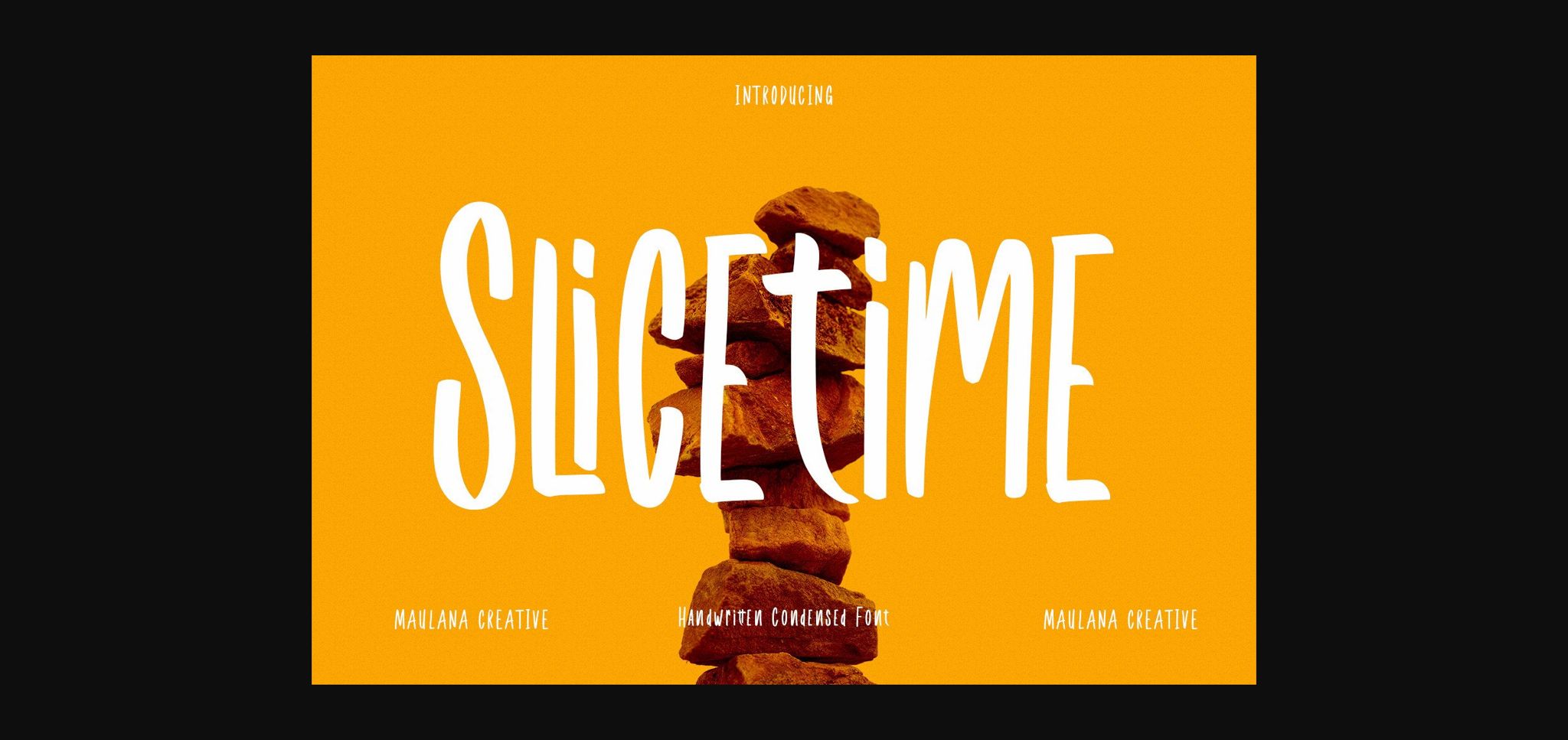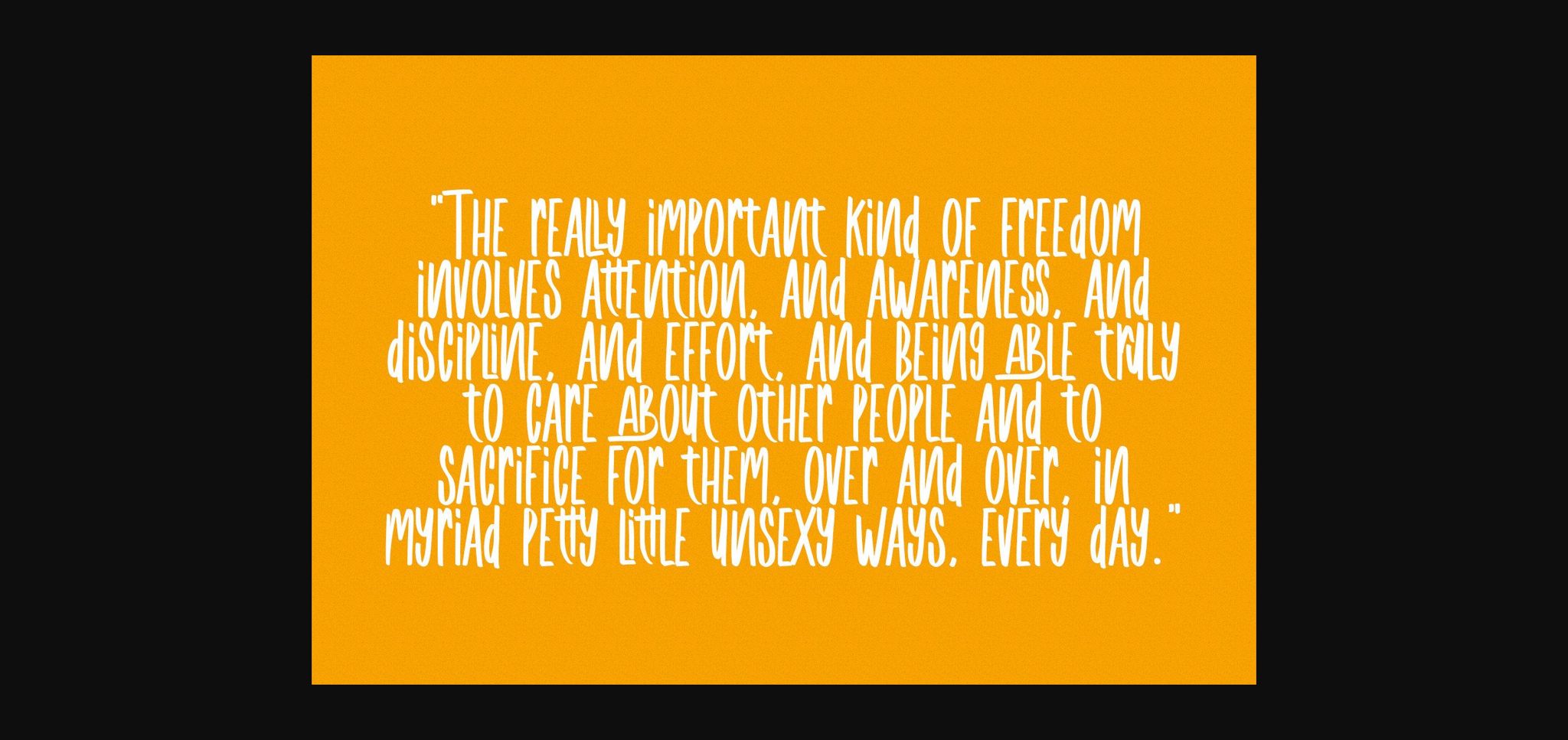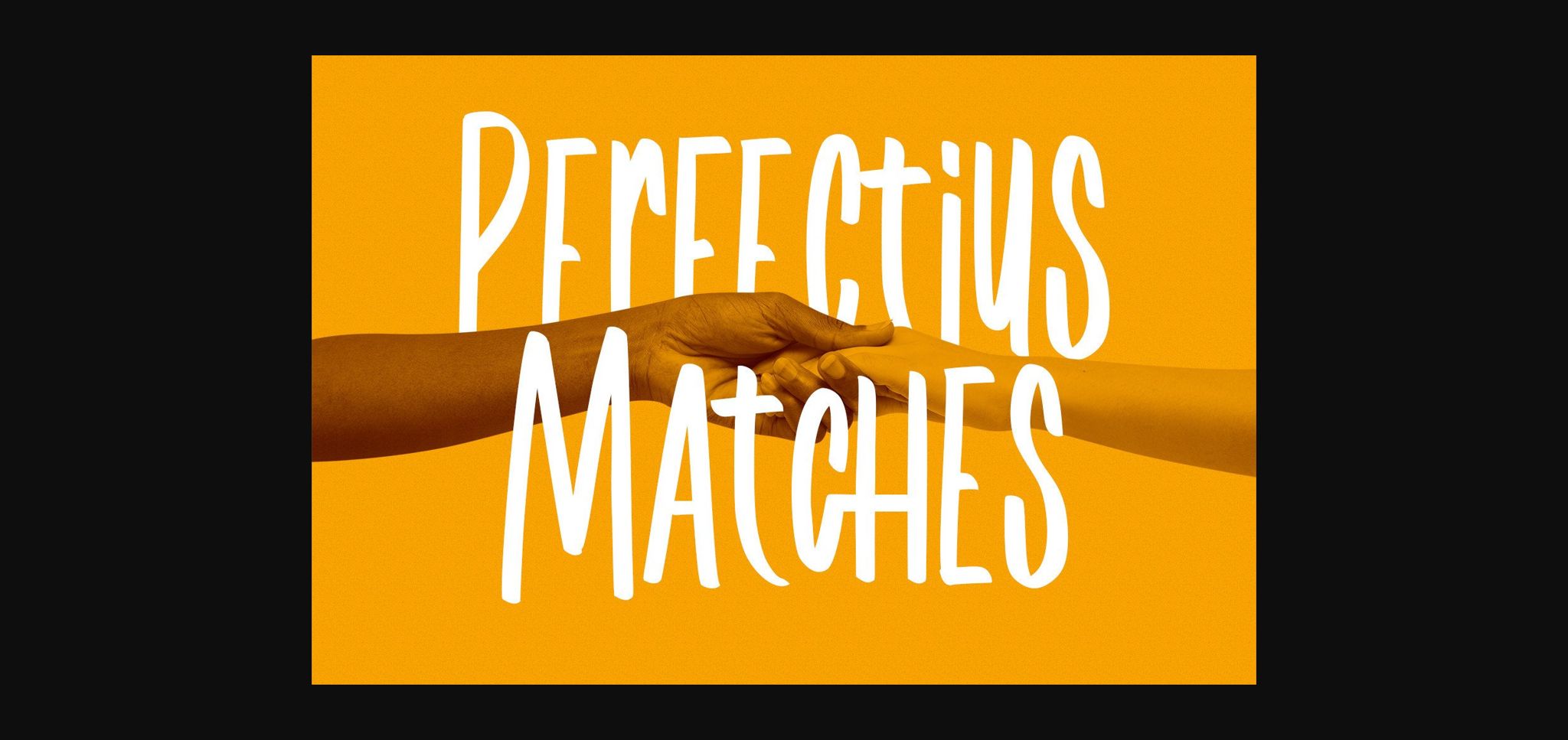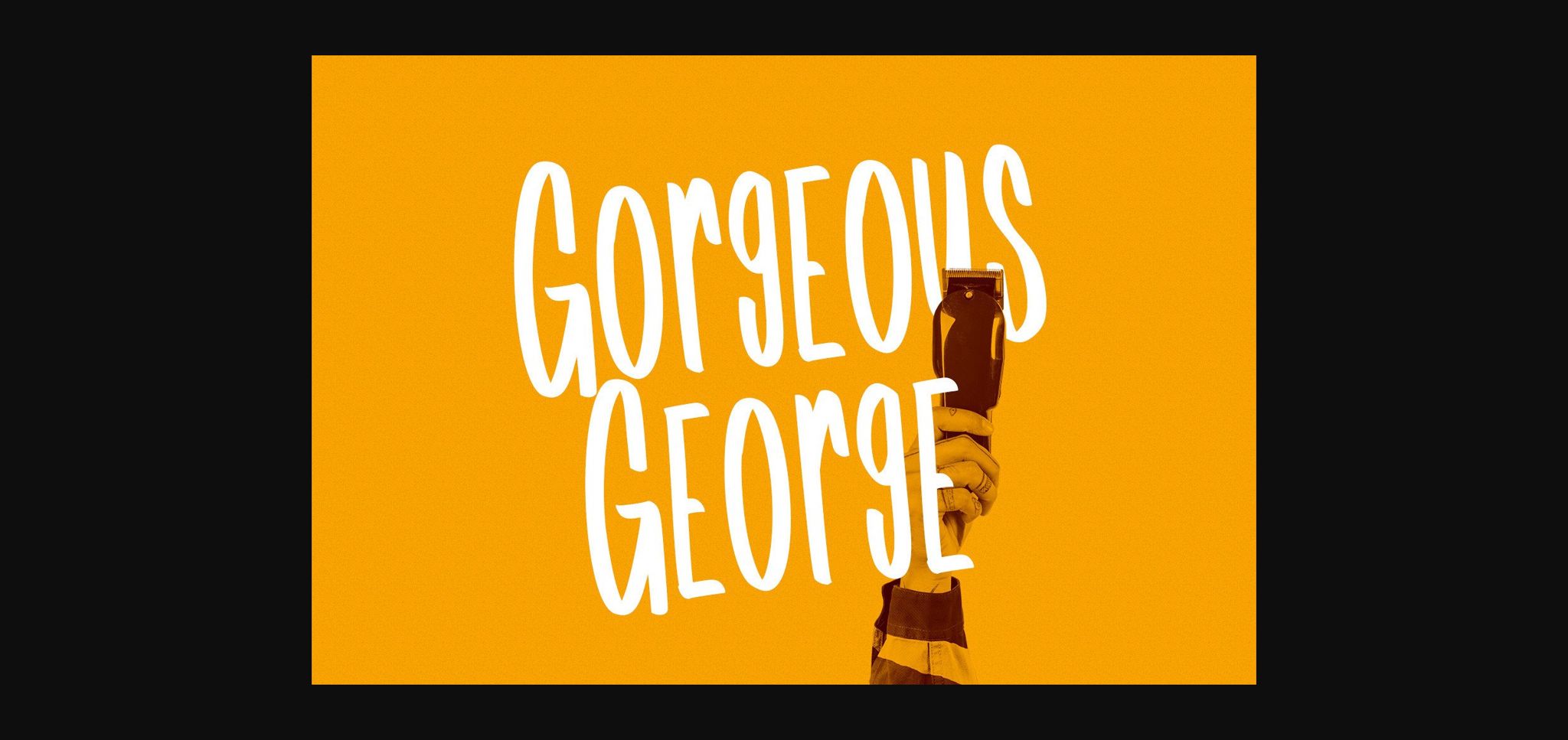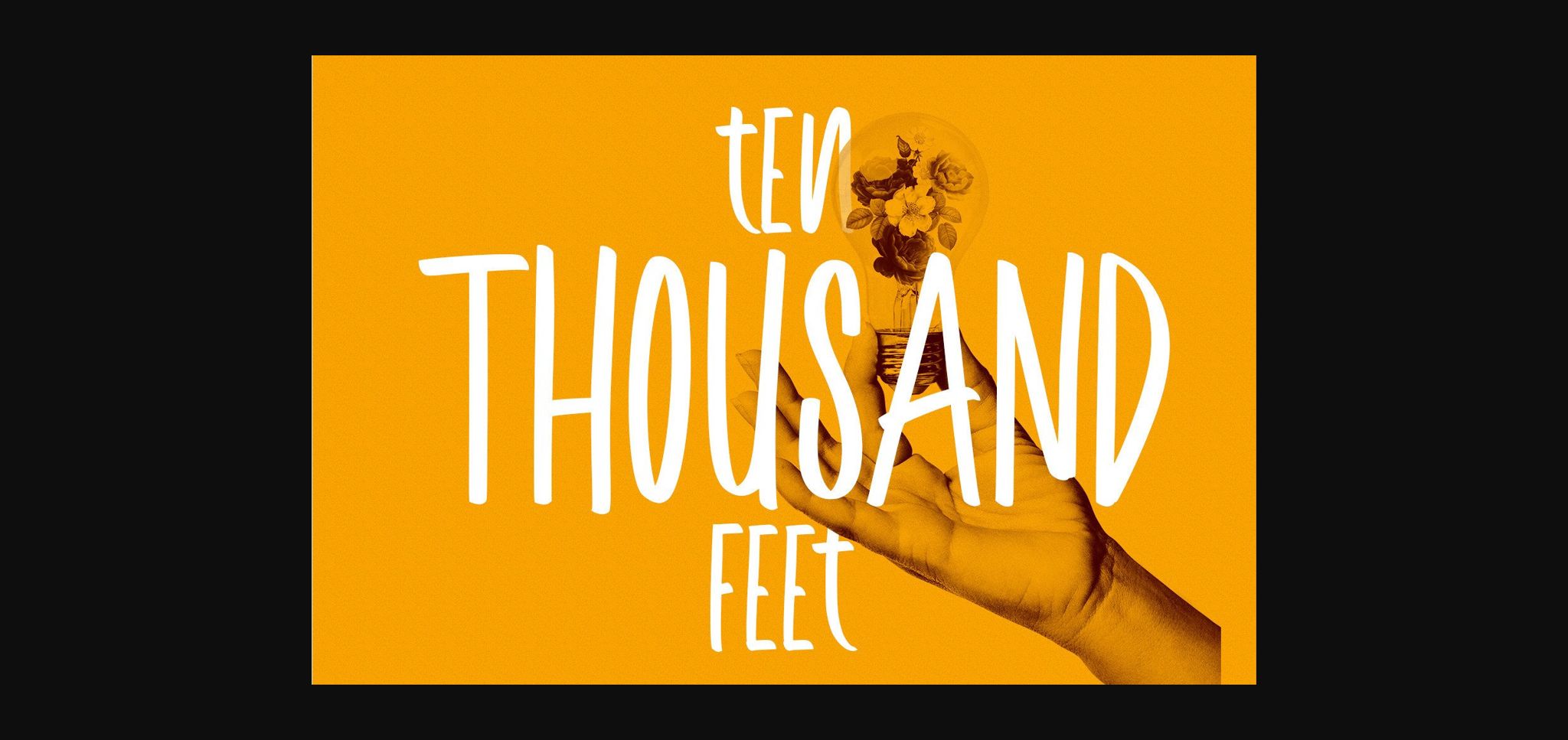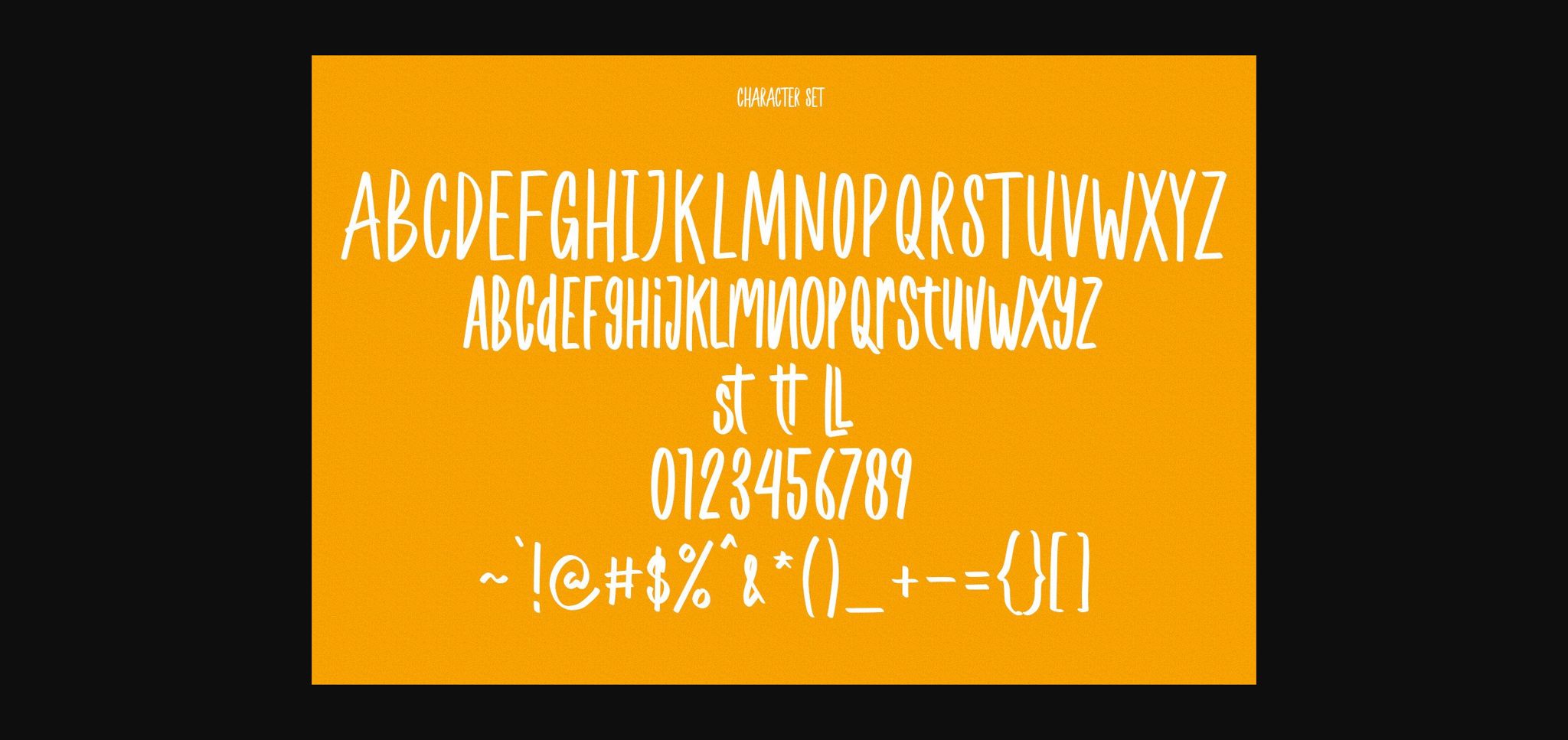
Slicetime is a narrow sans serif font. Whether you’re using it for crafts, digital design, presentations, or making greeting cards, this font has the potential to become your favorite go-to font, no matter the occasion!